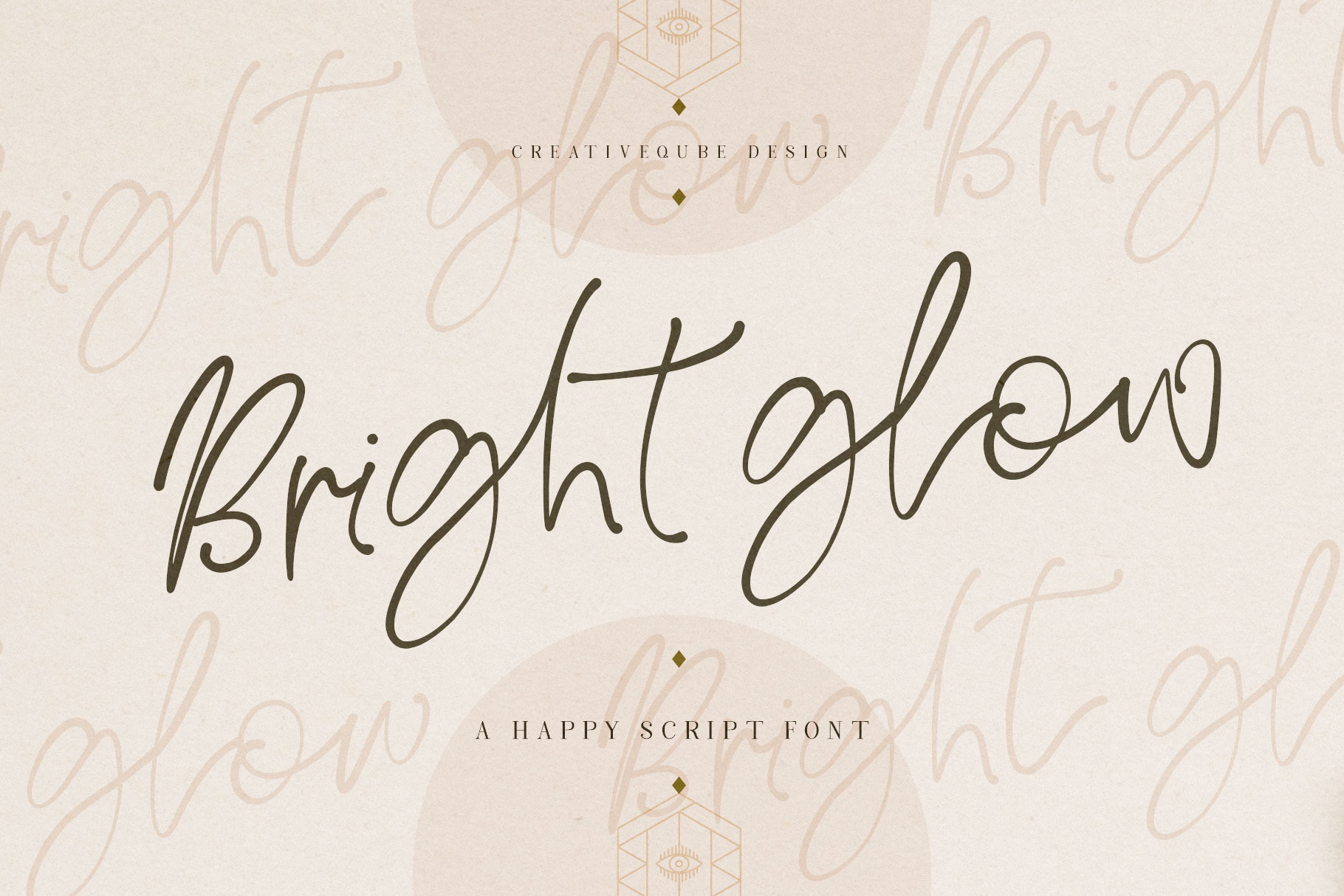
Bright Glow Script Font
Introducing Bright Glow Script font!
This cute happy little number is bright and bouncy - such a friendly little font. Although it's not actually so little - in fact it includes a full set of lowercase alternates - PLUS 37 extra ligatures to create that authentic hand written look!